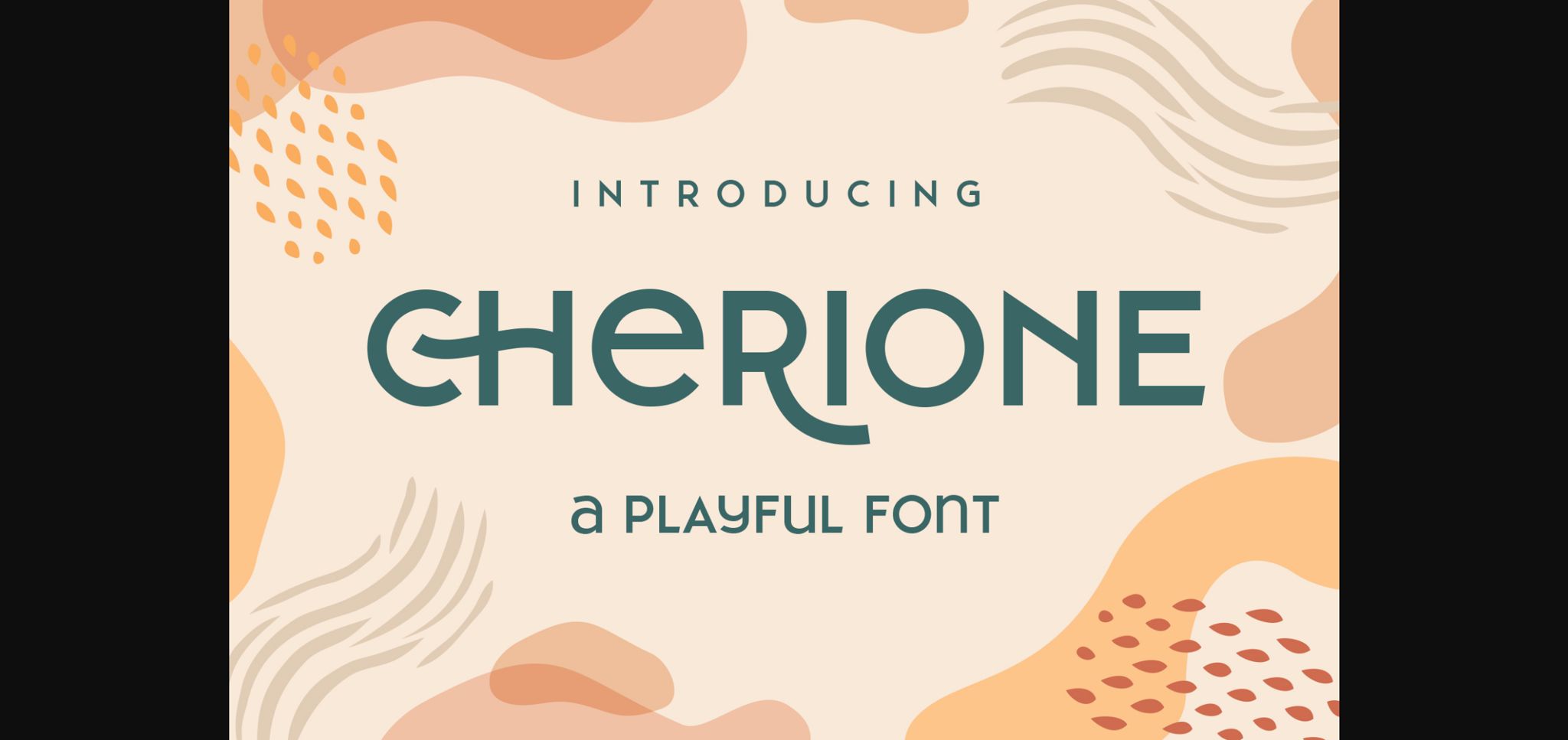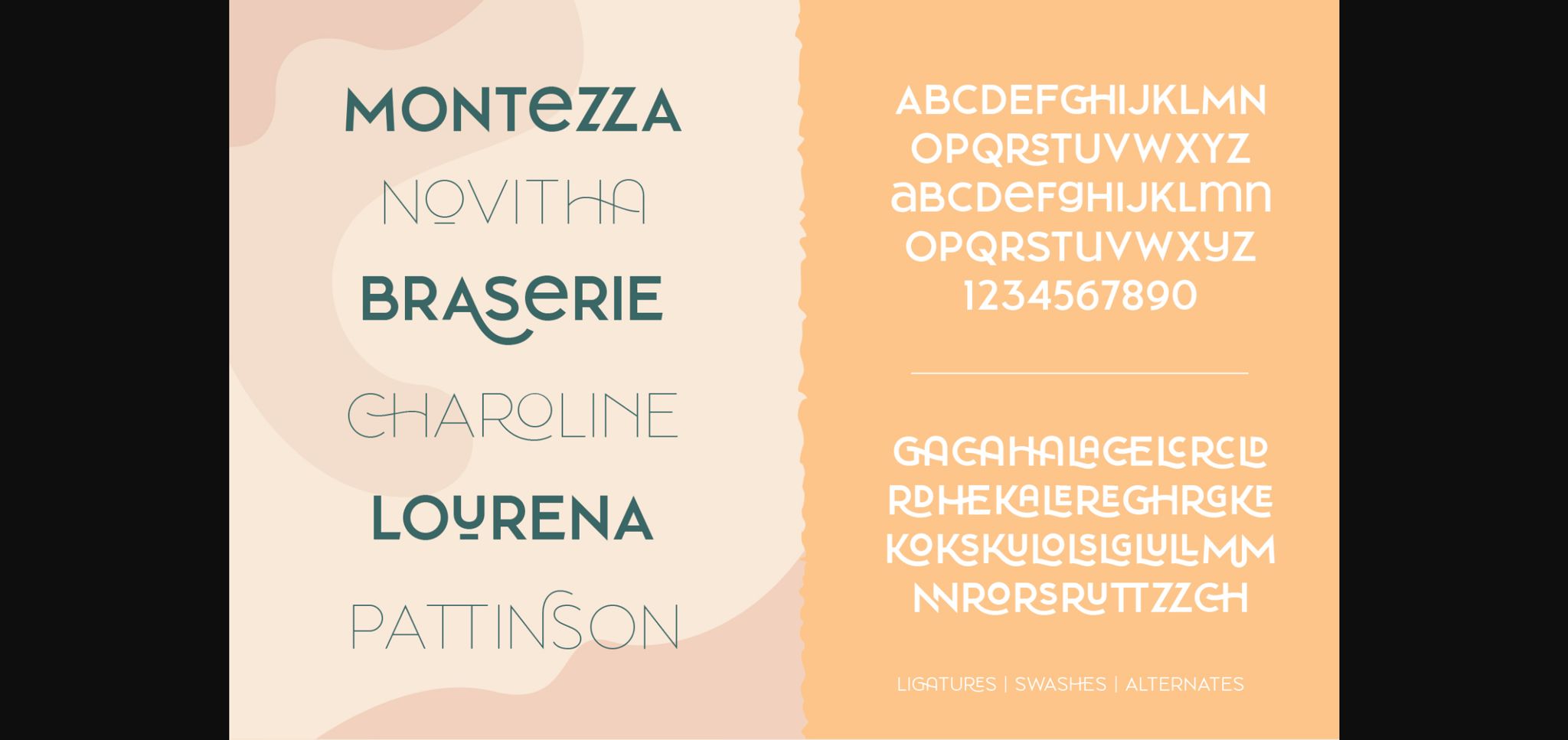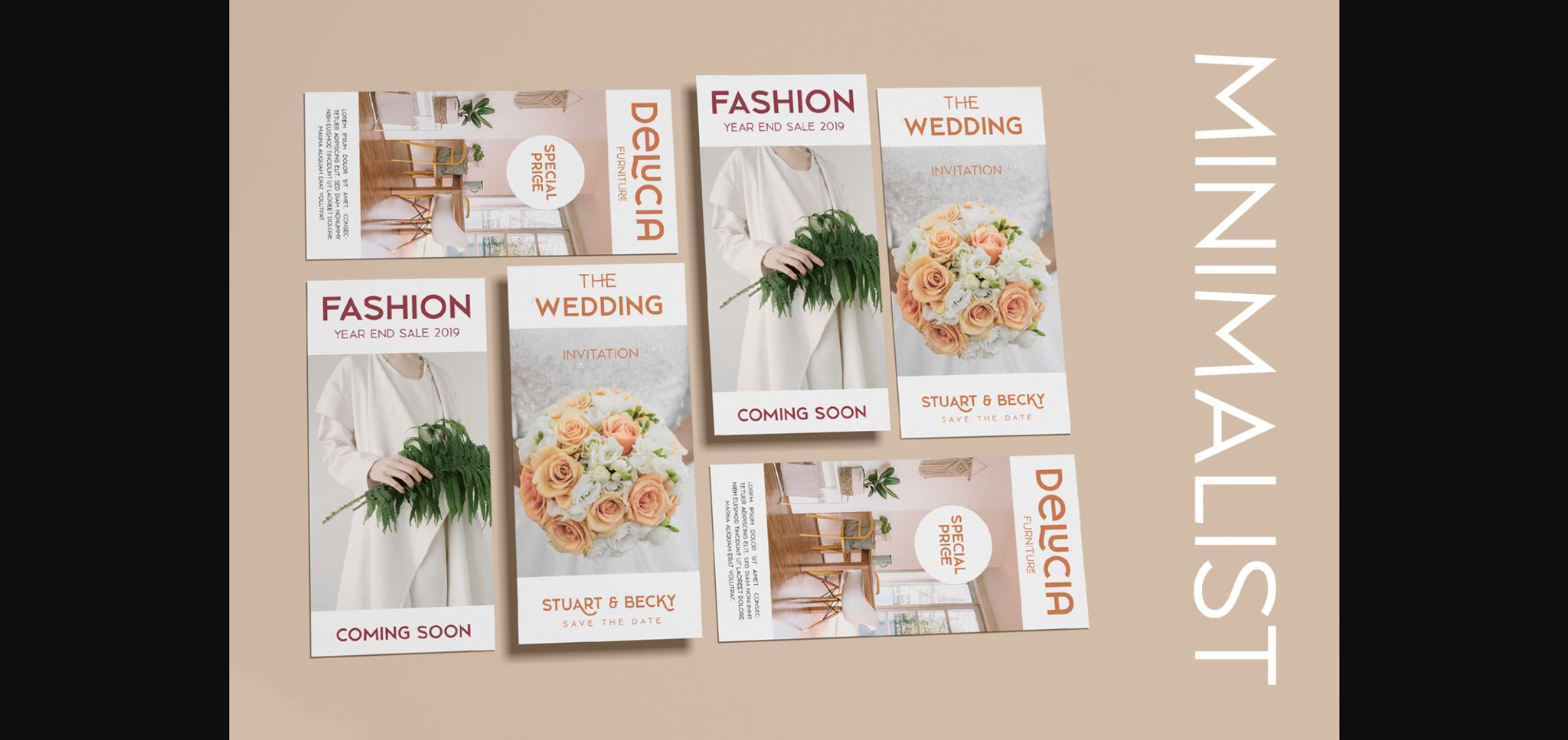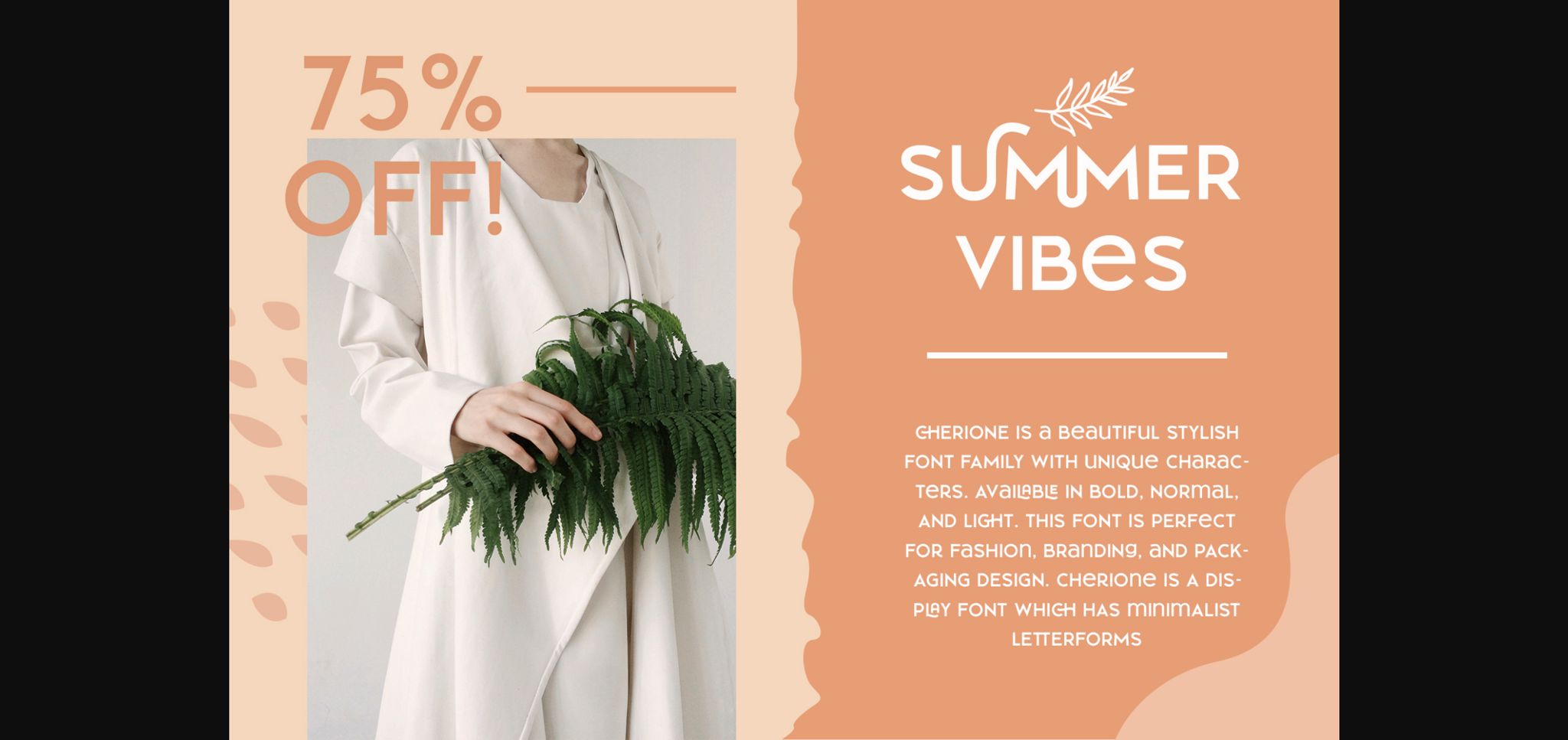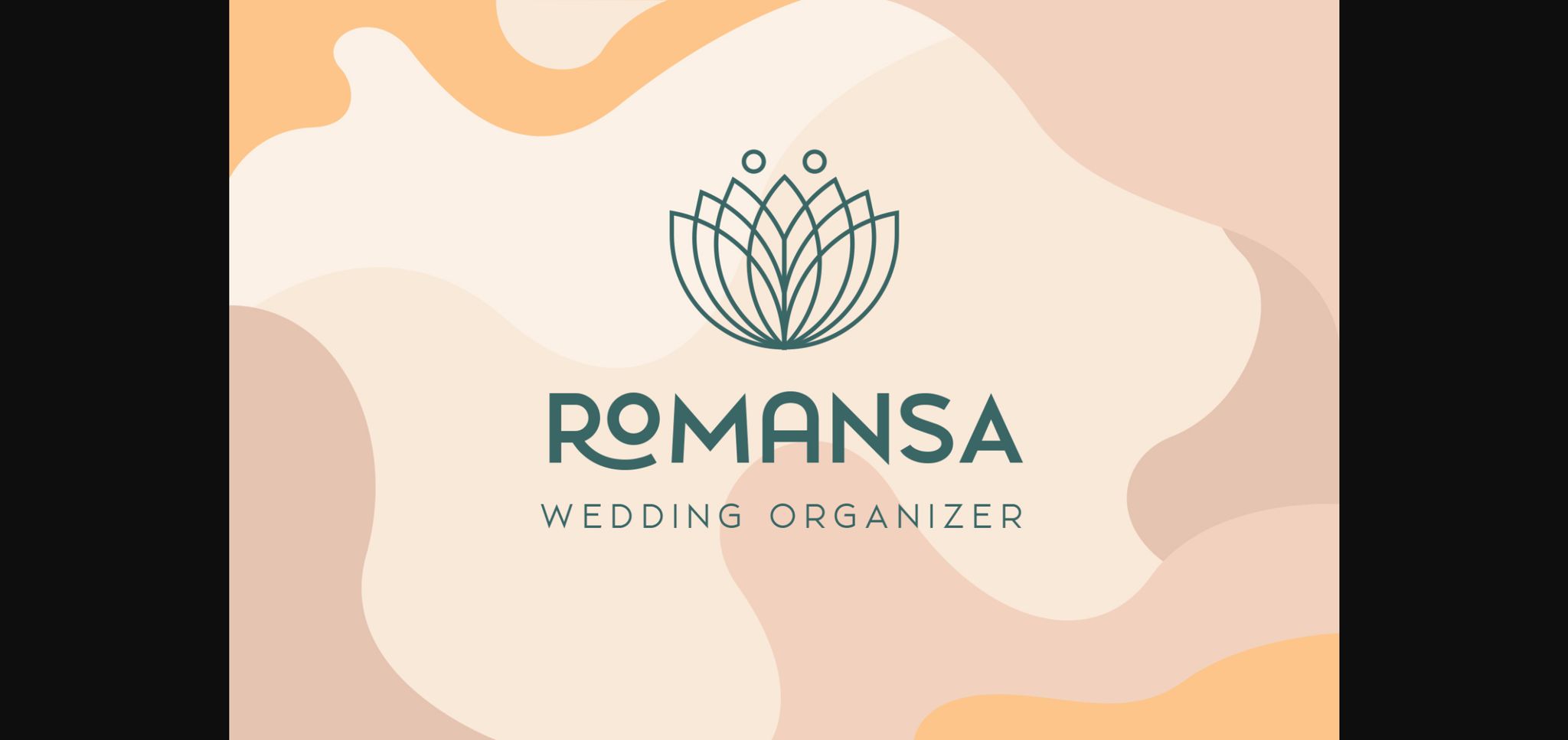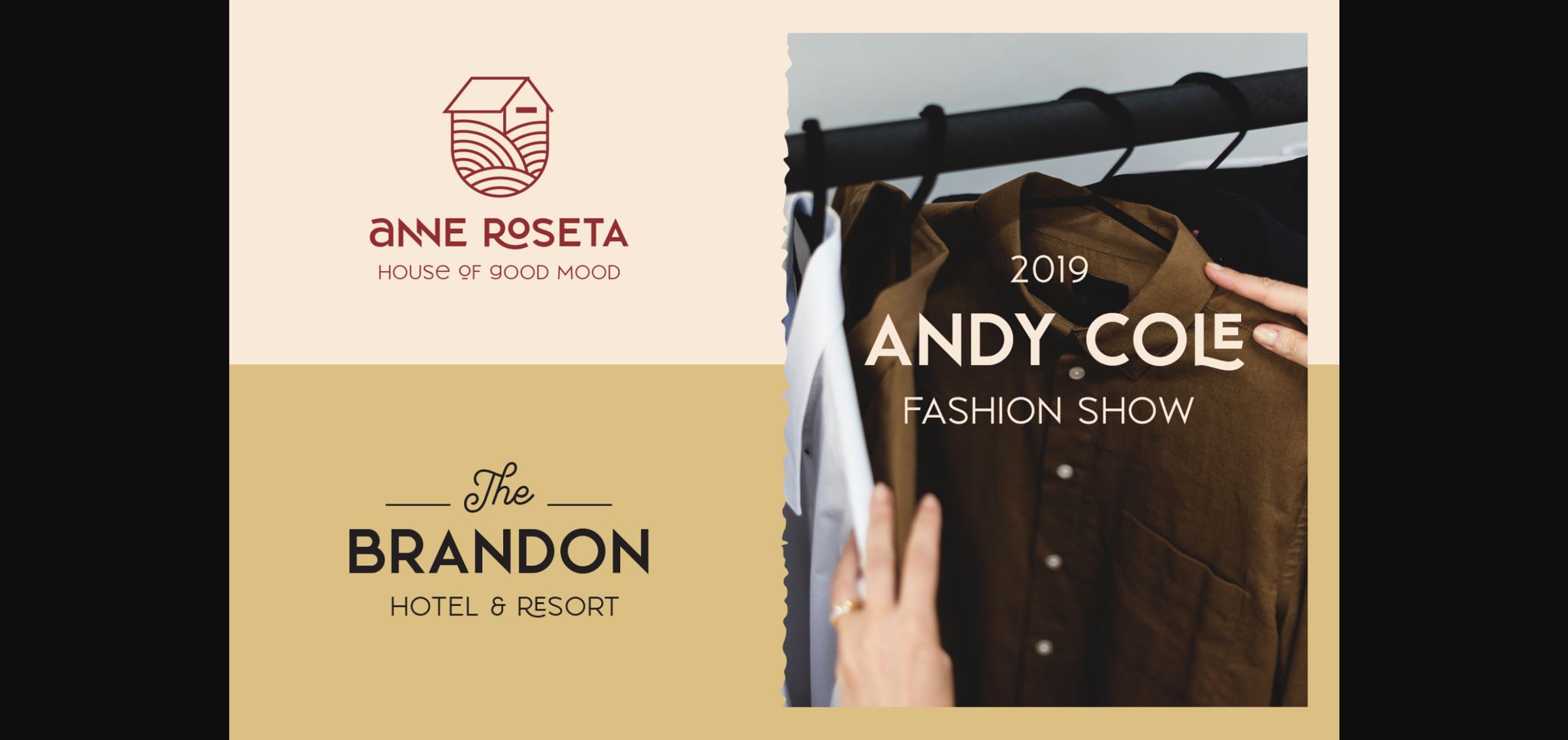
About Cherione Font
Cherione is modern, yet subtly playful sans serif font family. The lowercase letters are the same height with the uppercase that gives this font a unique, playful look. Itβs carefully balanced geometric characters have been adjusted to look elegant and minimalist.
Cherione font family consists of 3 weights: Light, Normal, and Bold.
There are 30+ unique ligatures which give you many variations of typography designing. Also complete with accents, swashes, and alternates.